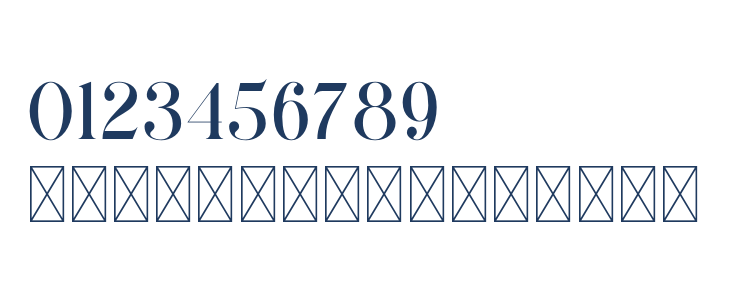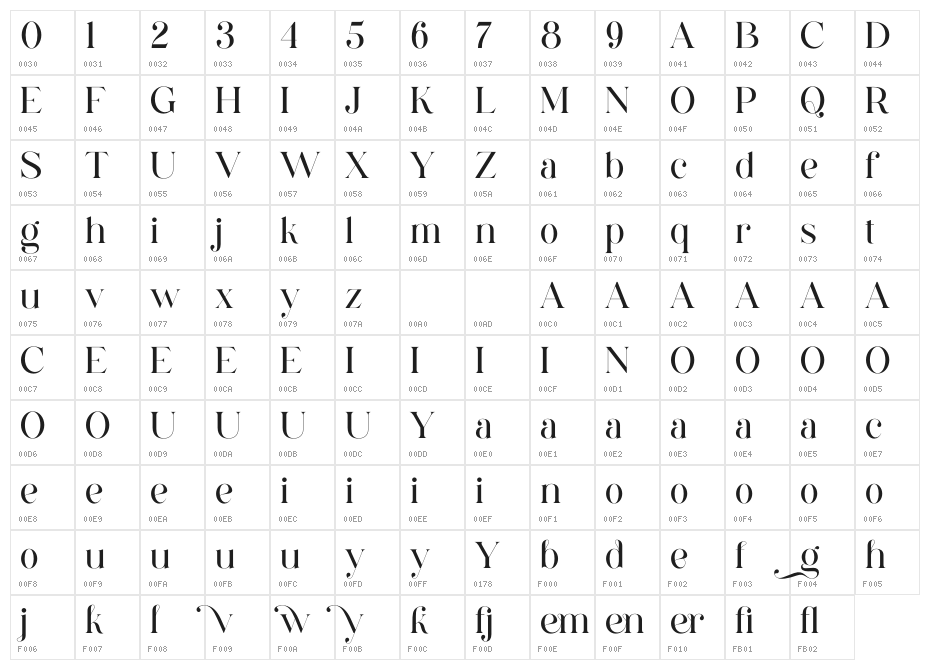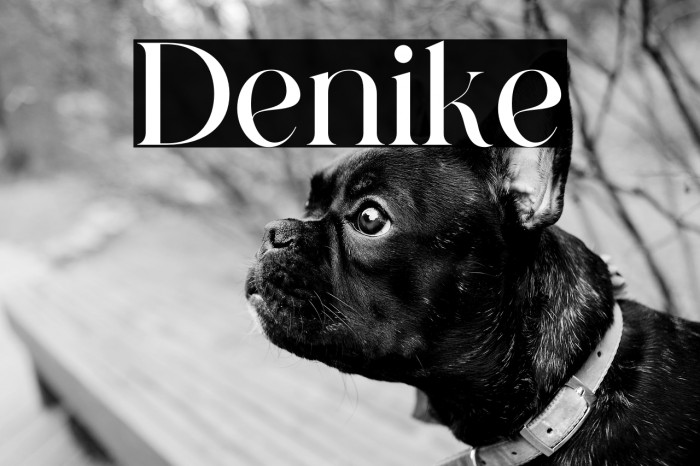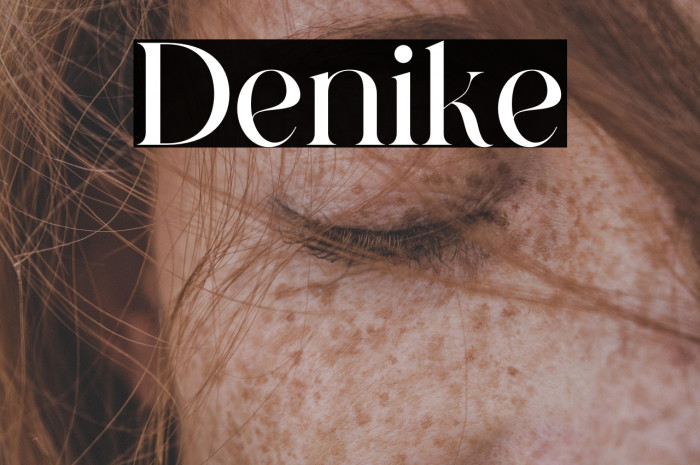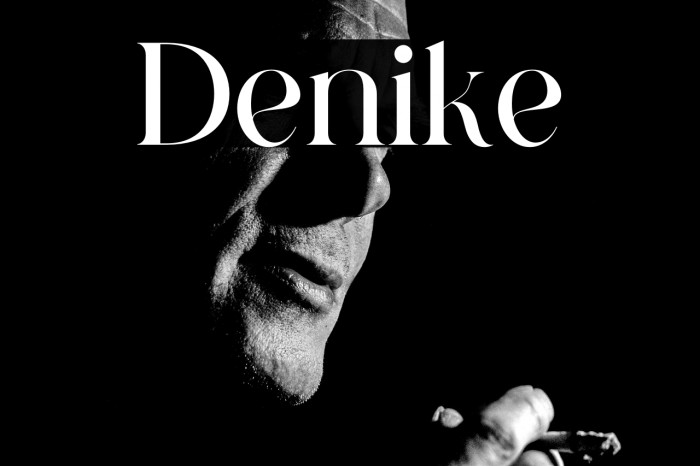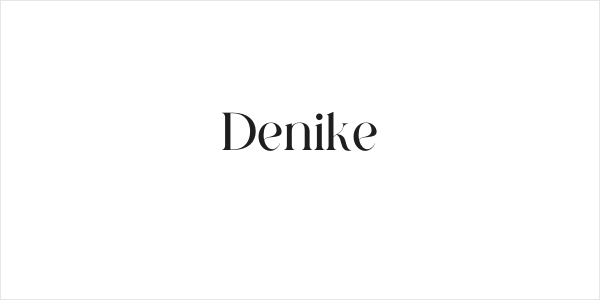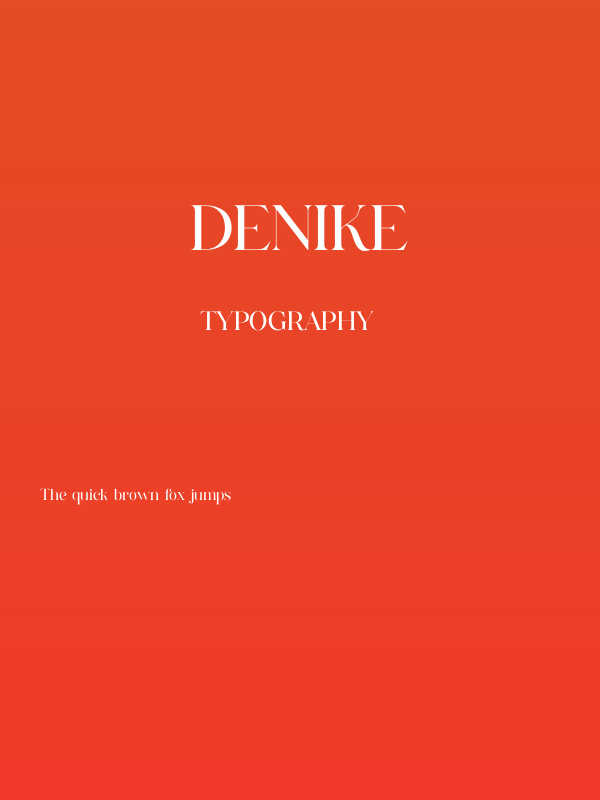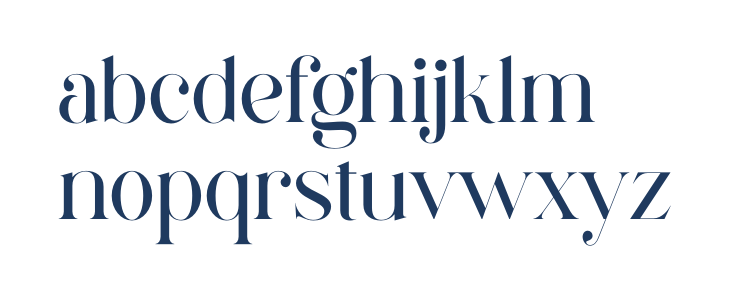
Denike Font
Denike Description
This font exhibits a refined and elegant serif style, characterized by its high contrast between thick and thin strokes. The uppercase letters are tall and stately, with a classic appearance that is both sophisticated and timeless. The lowercase letters maintain a harmonious balance, featuring smooth curves and distinctive serifs that enhance readability. The numerals are designed with a similar elegance, ensuring consistency across all characters. This font's overall aesthetic is both modern and classic, making it versatile for various design applications.